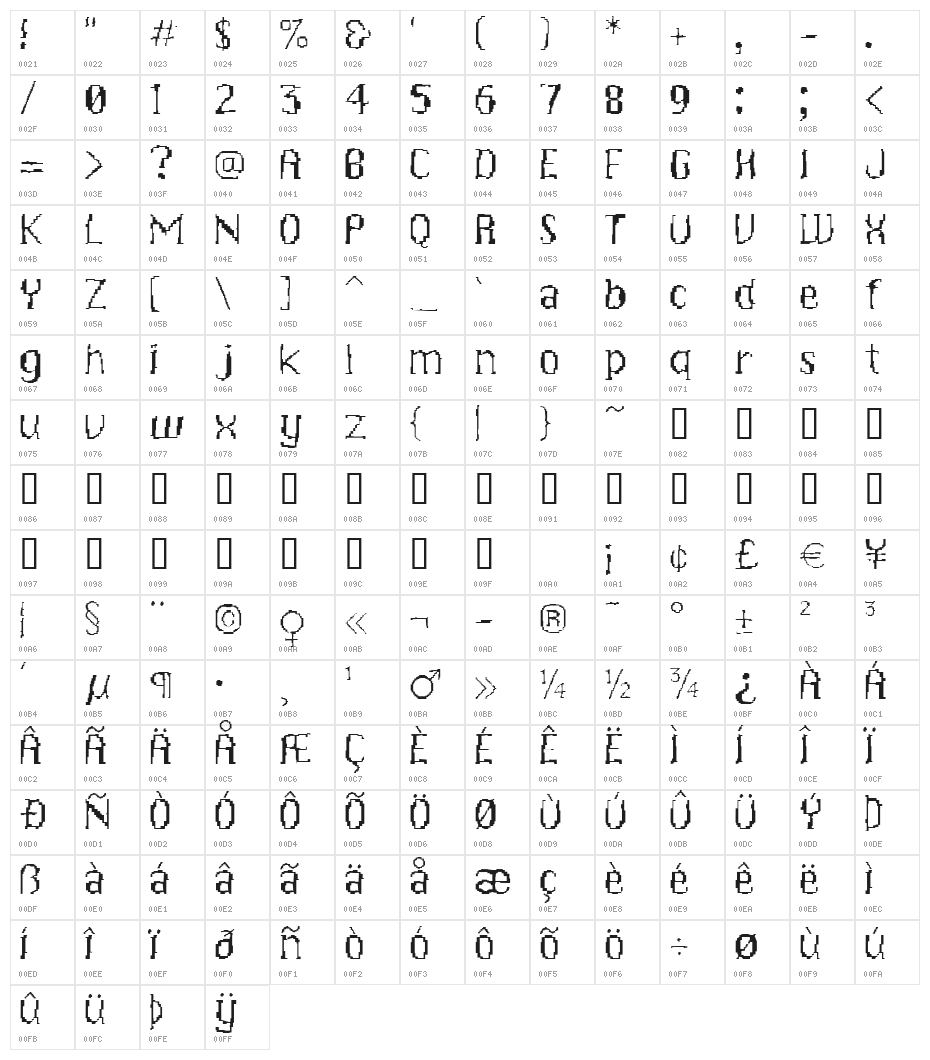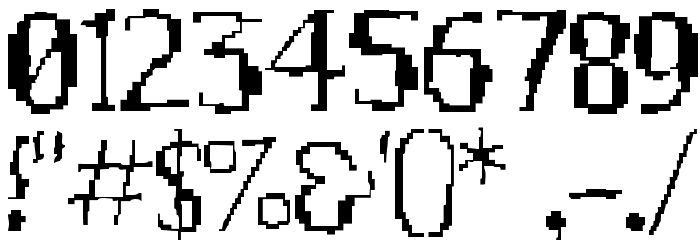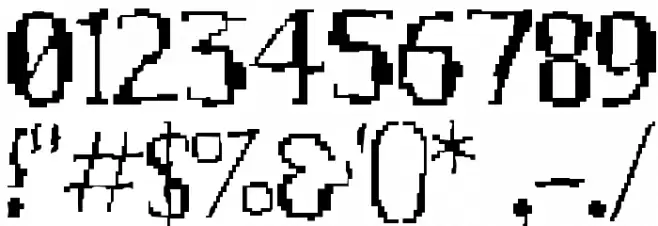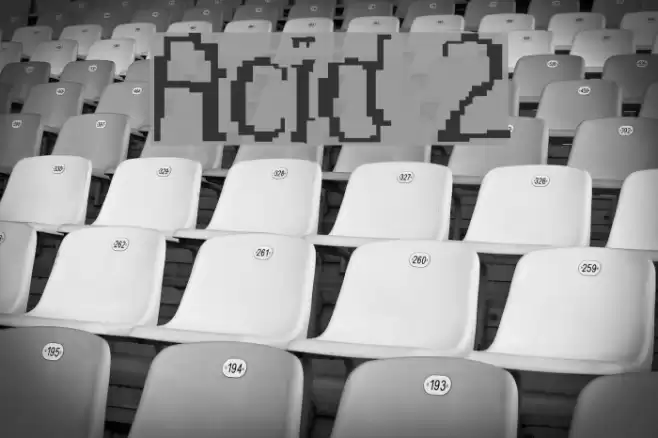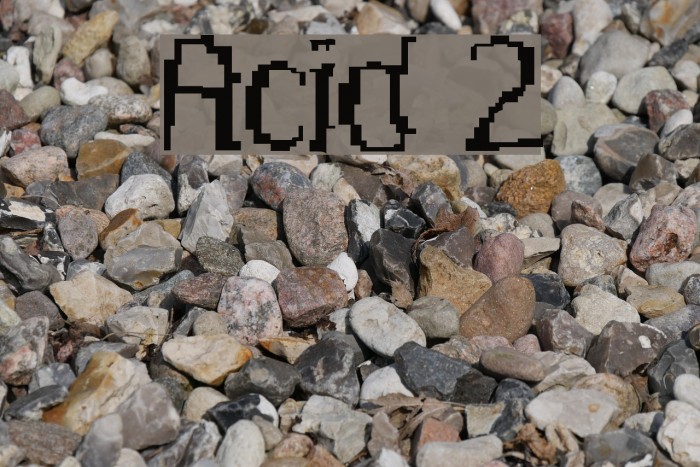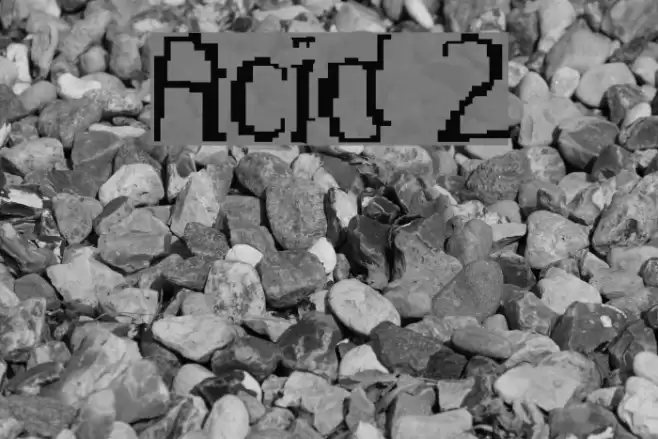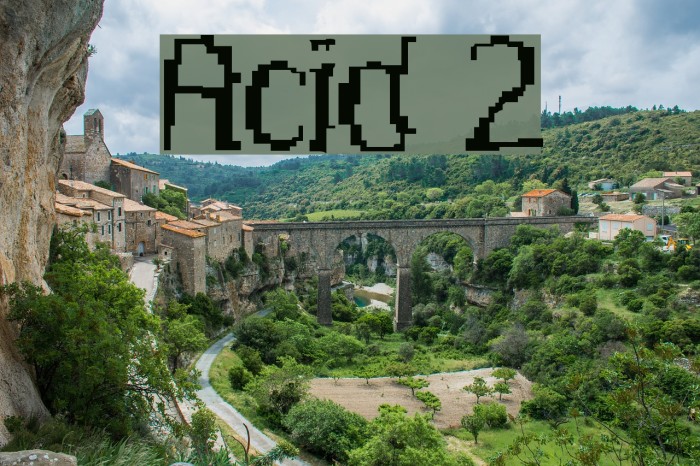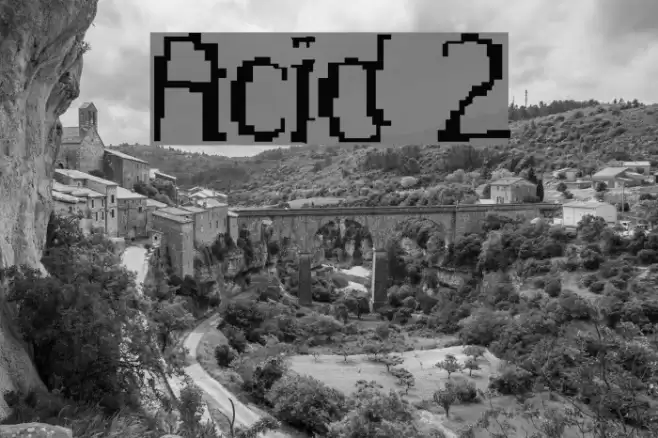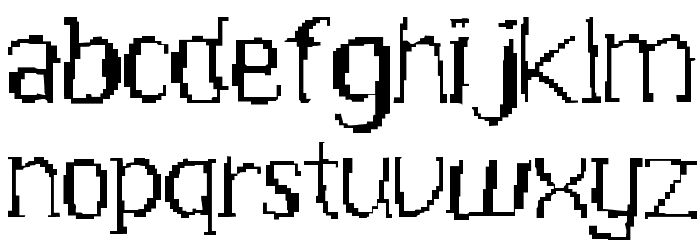
Acid 2 Font
Acid 2 Description
This font features a unique, pixelated style that combines elements of both modern and retro aesthetics. The uppercase and lowercase letters are distinct, with a blocky, digital appearance that suggests a connection to early computer graphics or video game design. The numbers and special characters maintain this theme, offering a cohesive look across all characters. The strokes are consistent in width, giving the font a monospaced feel, although it is not strictly monospaced. The overall effect is both playful and nostalgic, making it suitable for projects that aim to evoke a sense of digital nostalgia or to stand out with a distinctive, unconventional typeface.
| Overall Style | Retro, Digital |
| Use Case | Logos, Headlines, Posters |
| Proposed Projects | Ideal for video game graphics, retro-themed posters, digital art projects, and any design work that seeks to capture a nostalgic or tech-inspired aesthetic. |